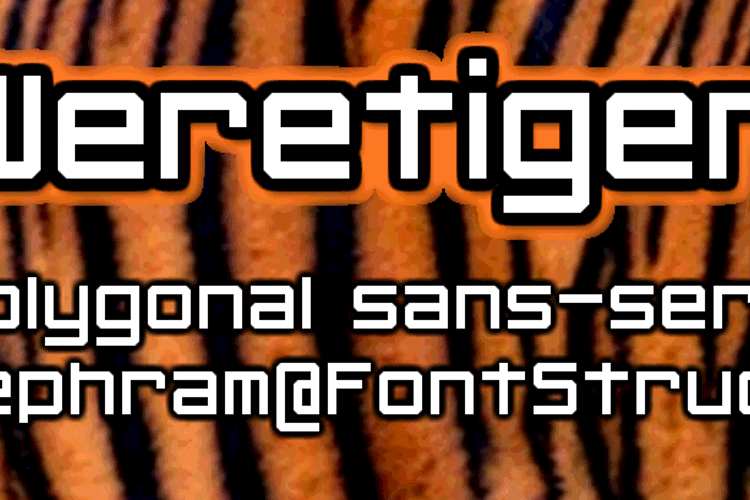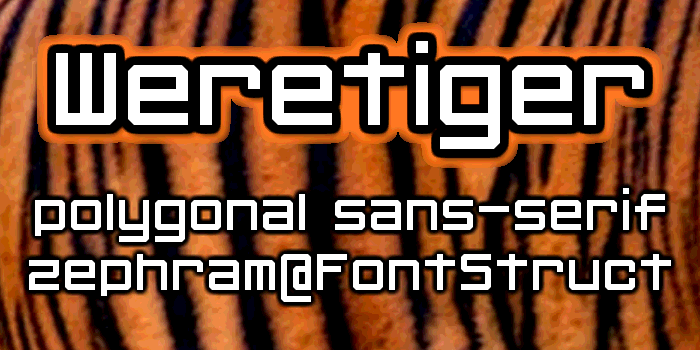
Weretiger Font
by Pixel Kitchen
About Weretiger Font
A slightly futuristic chatfont design. Good for both logos and body text. Supports several languages!